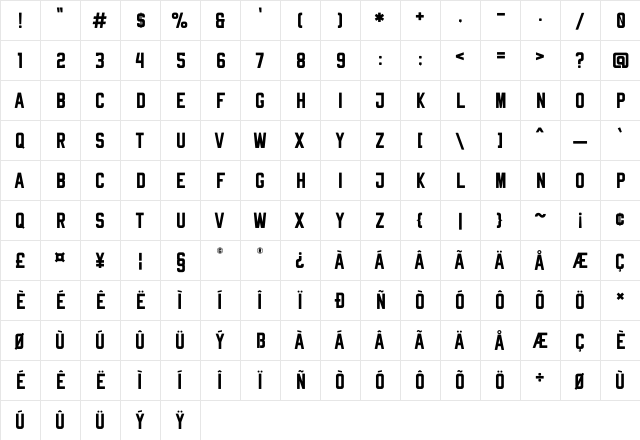
Rheiborn Sans Clean Regular
Design Context for Rheiborn Sans Clean Typeface
Rheiborn Sans Clean offers clean, dependable letterforms without strong stylistic allegiance, making it a practical choice for designers who need flexibility.